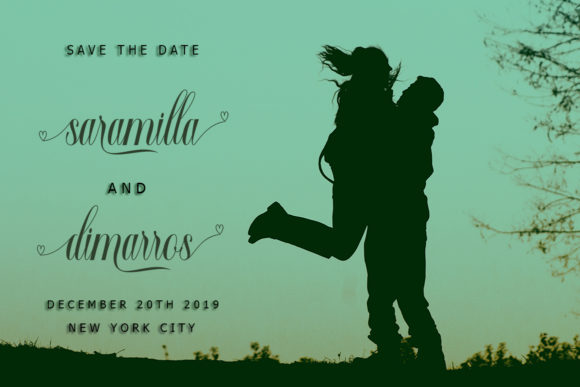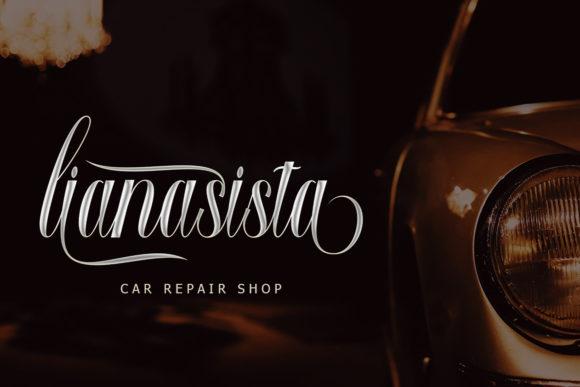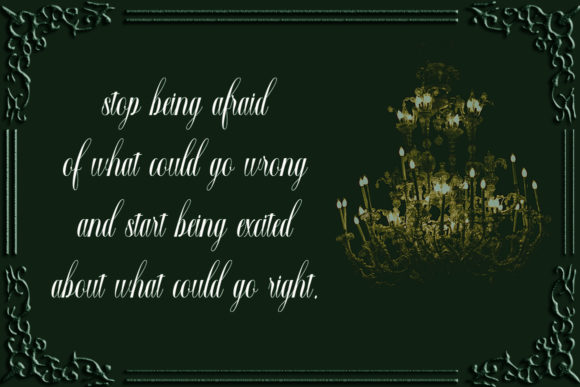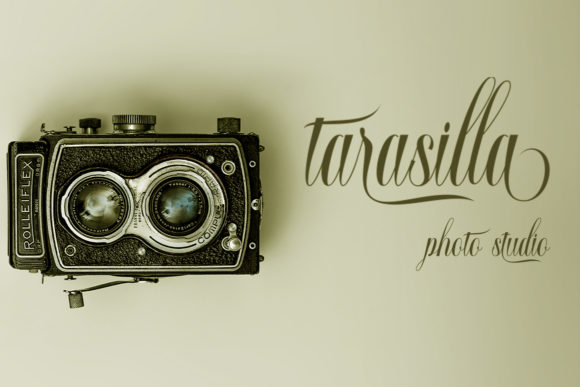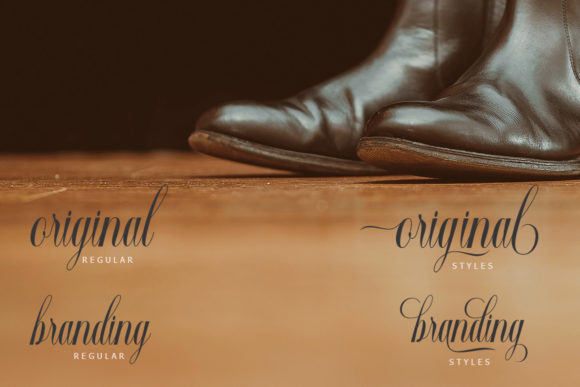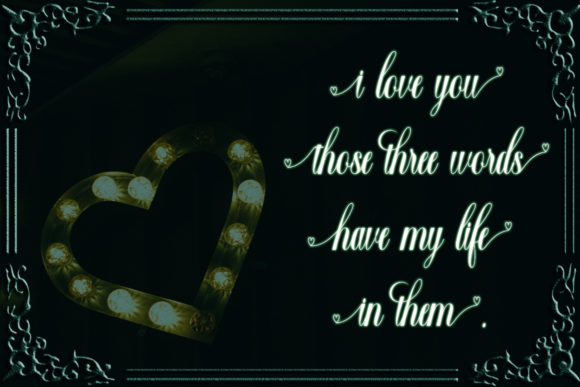
Introduction to Hirradista Script Font
The Hirradista is a modern calligraphy script.
It has a casual yet pretty look which can be used for various purposes .